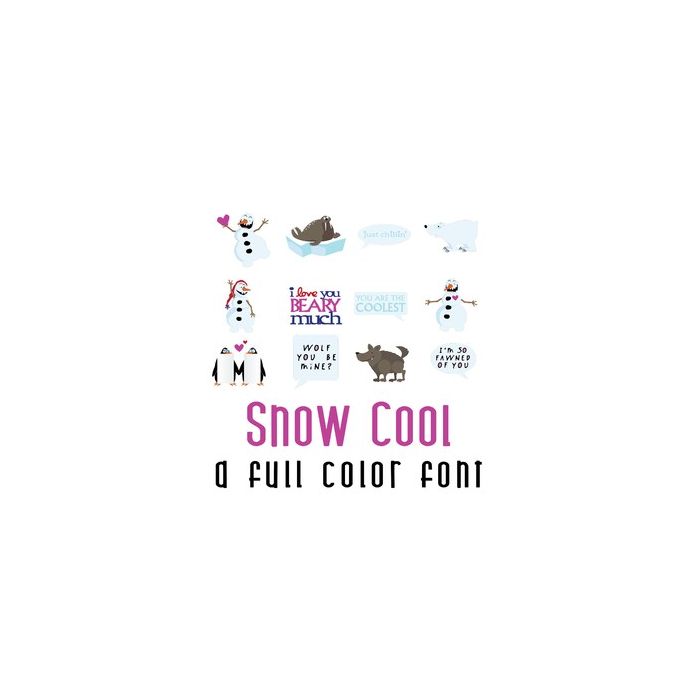
This adorable full-color doodlebat font features 26 winter animals, snowman, and loving puns. Perfect for cards, crafts, gifts, decor, scrapbook pages, planner stickers, and more!